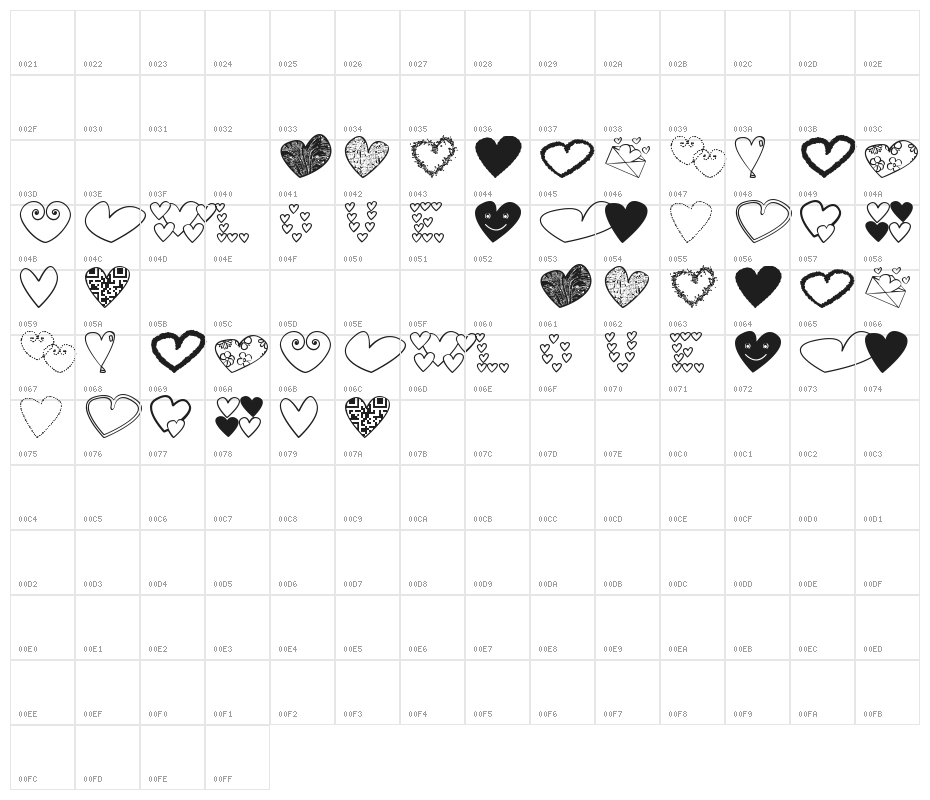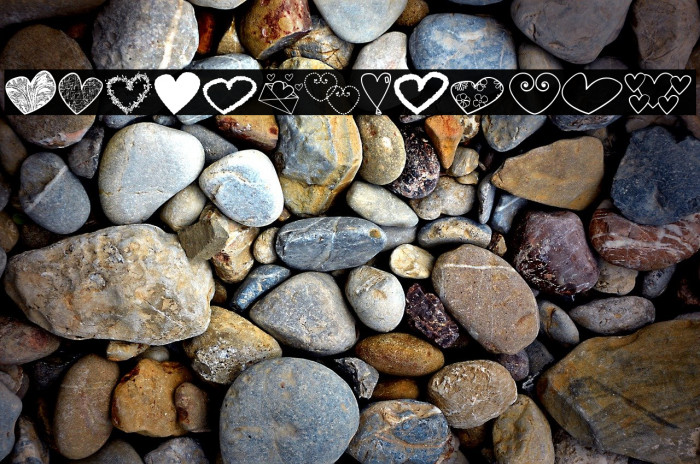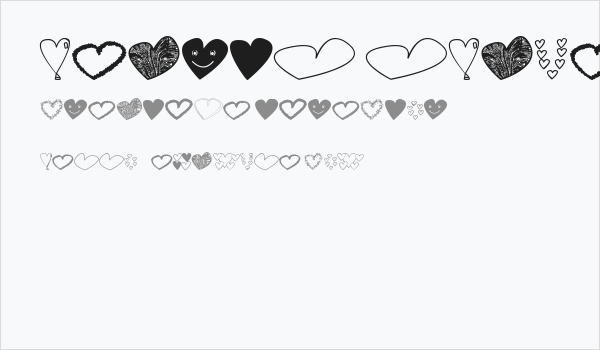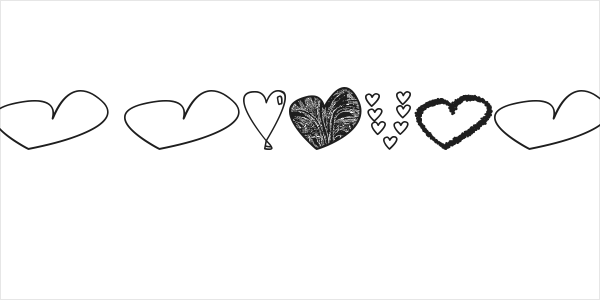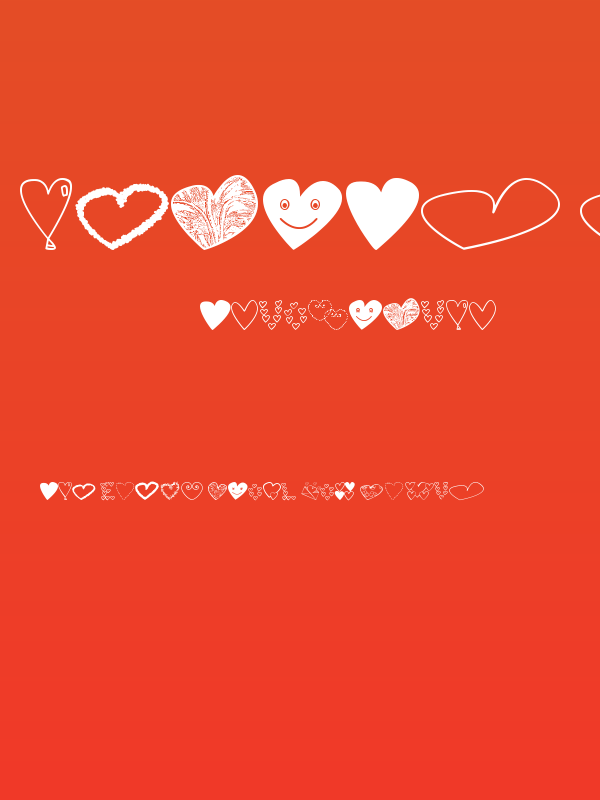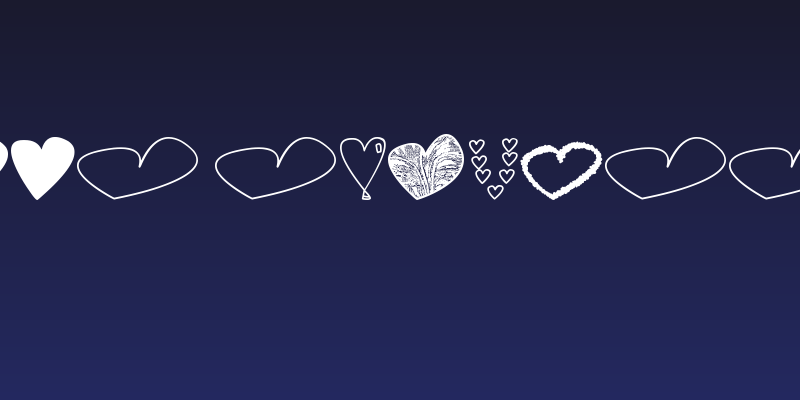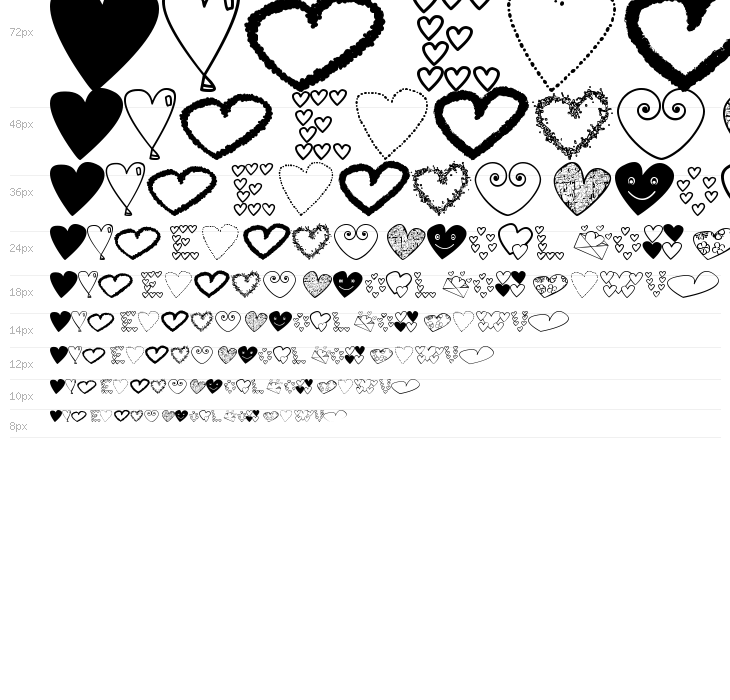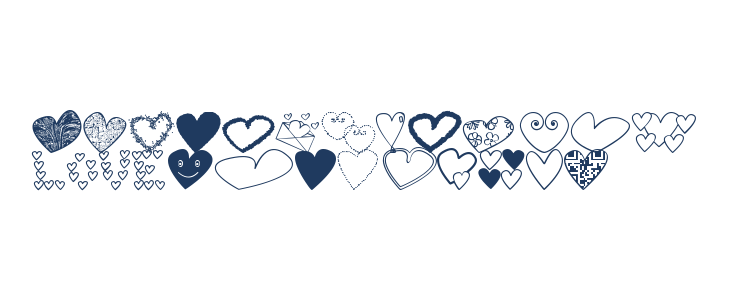
hearts shapess tfb Font
hearts shapess tfb Description
This decorative font features a variety of heart shapes, each with unique designs and patterns. The hearts range from solid black to outlined and filled with intricate details such as swirls, dots, and floral motifs. Some hearts are combined with other elements like envelopes or balloons, adding a playful and romantic touch. The overall style is whimsical and charming, making it ideal for projects that require a touch of love and creativity. The font is not designed for traditional text but rather as a collection of heart-themed symbols.
| Use Case | Logos, Decorative elements |
| Proposed Projects | Ideal for Valentine's Day cards, wedding invitations, romantic crafts, and love-themed graphic designs. |